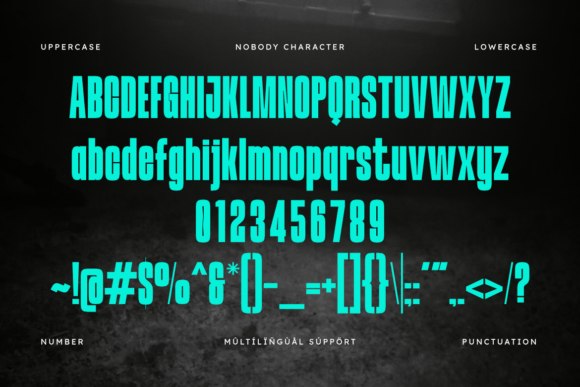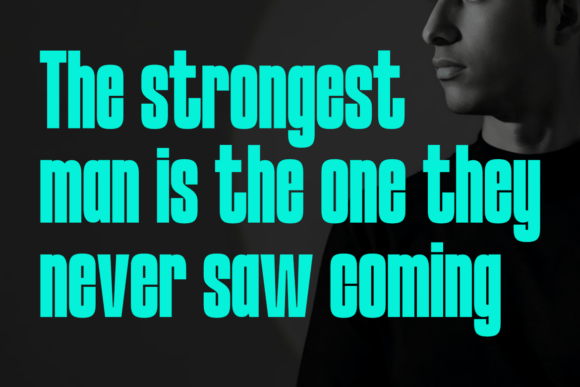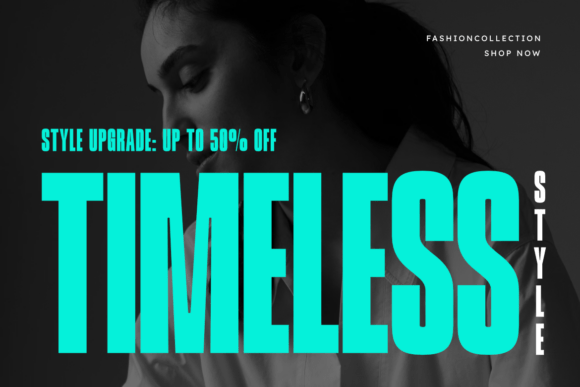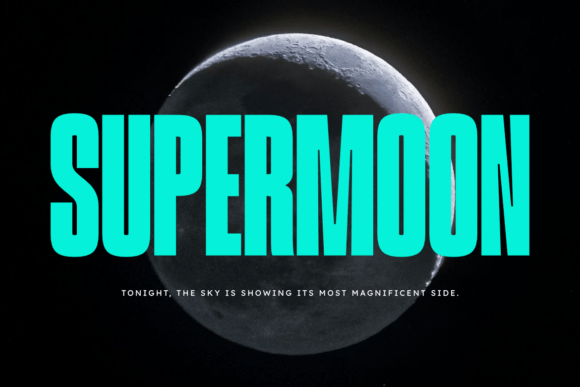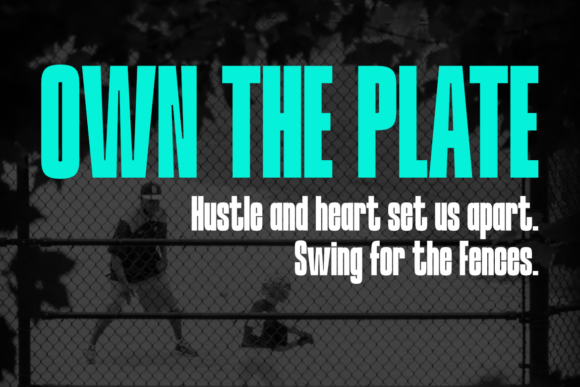
Introduction to Nobody Font
Nobody is a bold, high-impact modern condensed sans serif font designed for maximum visibility and a clean, contemporary aesthetic.
Its solid, narrow letterforms and powerful structure make it an exceptional choice for dominant headlines, professional branding, social media graphics, and large-scale poster designs This versatile typeface ensures your message is delivered with confidence and clarity, providing a sleek yet authoritative look that is perfect for any modern creative project across digital and print media.
Key Features of Nobody Font